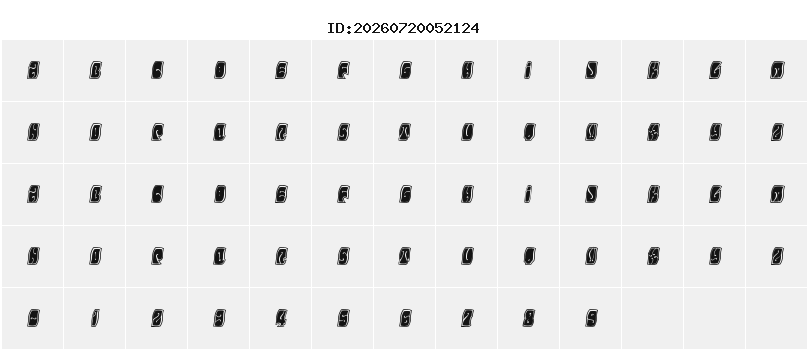
• Font Name: Electorate Blue
• Full Font Name: Electorate Blue
• Designer: Ray Larabie
About Electorate Blue.ttf
Electorate Blue.ttf is a modern, elegant sans-serif font designed for ultimate readability and visual harmony. Perfect for branding, headlines, web design, and print materials.